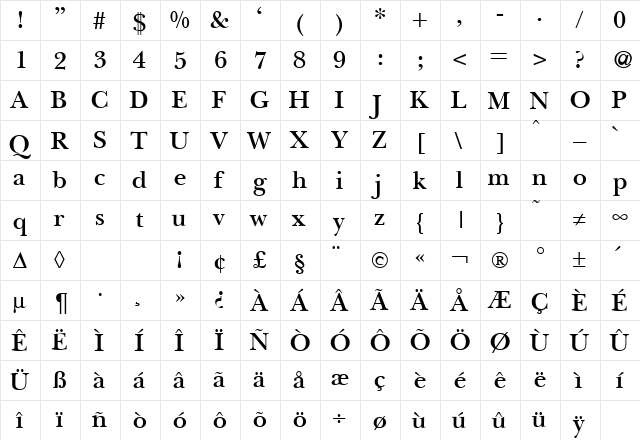
BaskervilleNovaTwoDemi Regular
Design Context for BaskervilleNovaTwoDemi Typeface
BaskervilleNovaTwoDemi is a composed and adaptable typeface that performs quietly and consistently across a wide range of design contexts.